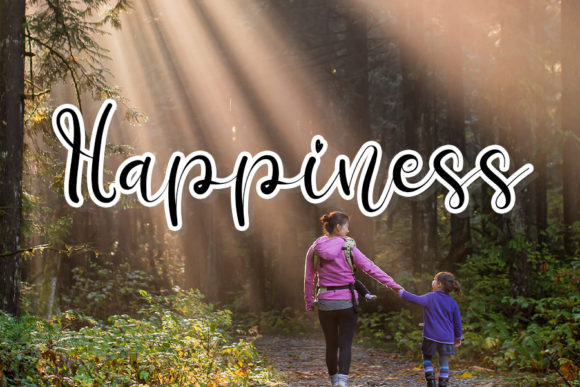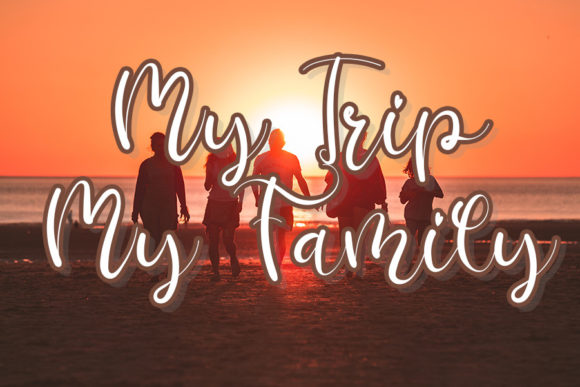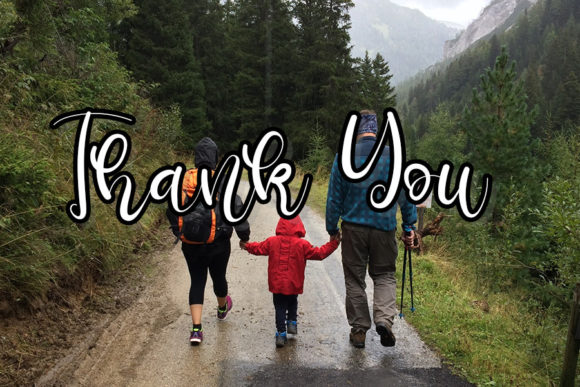
Introduction to Kawaii Family Font
As a designer, there’s nothing quite like the thrill of bringing a creative project to life. You’re pouring your heart and soul into every detail, from the color palette to the typography. And that’s exactly when the magic happens – when you stumble upon the perfect font to elevate your design to the next level. For many, that perfect font is the Kawaii Family Font.
This ravishing script font exudes elegance and class, making it a valuable addition to any designer’s toolkit. With its high quality and transparent background, it’s the perfect design resource for those looking to add a touch of sophistication to their creative projects. And the best part? It’s available for free download, making it accessible to designers of all levels.
Key Features of Kawaii Family Font
- Unique Kawaii design aesthetic with playful and cute characters, perfect for creative projects and design resources.
- Includes multiple font styles and weights to enhance visual appeal and add depth to your designs.
- Transparent background option allows for easy customization and layering in design software.
- Font size: scalable, resolution: high-definition (HD), making it ideal for large-scale designs and prints.
- Suitable for a wide range of creative projects, including logos, graphics, and text-based designs, making it a valuable design resource.
Honest Review: Kawaii Family Font
I recently stumbled upon the Kawaii Family Font, and I must say, it’s a delightful addition to any design project. This font screams ‘kawaii’ (Japanese for cute), and I’m here for it! ✨
What I love about this font is its high-quality design and versatility. It’s perfect for creating a playful, whimsical atmosphere in your next design project. Whether you’re working on a children’s book, a food blog, or a social media campaign, this font will bring a smile to your audience’s faces.
Here are some of the key features I love about the Kawaii Family Font:
- Transparent background for easy overlaying
- Perfect for kids’ projects, food blogs, and social media campaigns
However, I do have a few minor complaints:
- ⚠️ Limited character set, which might be a drawback for some designers
- ⚠️ Not suitable for formal or professional projects
Overall, I’m thoroughly impressed with the Kawaii Family Font. It’s a fantastic addition to any designer’s toolkit, and I’m excited to see what creative projects I can come up with using it! ✨
To use the Kawaii Family Font in PowerPoint or Word, select the text tool and choose the font from the font menu. You can adjust the font size, color, and style to suit your design needs. The Kawaii Family Font is a versatile design resource that can add a touch of kawaii charm to your presentations and documents.
Experiment with different font sizes and styles to create a unique look. Use the font in combination with other design elements, such as icons and graphics, to create a cohesive design. The Kawaii Family Font is a free download, so feel free to use it in your creative project without worrying about licensing fees.
The Kawaii Family Font is perfect for designers who want to add a touch of whimsy to their creative project. It’s commonly used in design projects such as children’s book illustrations, greeting cards, and social media graphics. The font’s high-quality design and transparent background make it easy to use in a variety of design applications.
What makes the Kawaii Family Font a high-quality design resource?
The Kawaii Family Font is a high-quality design resource due to its unique and playful characters, which are carefully crafted to provide a consistent and visually appealing aesthetic. The font is designed to be highly legible, even at small font sizes, making it suitable for use in a wide range of creative projects. Additionally, the font’s high-quality design ensures that it will look great on various devices and screens, from desktop monitors to mobile